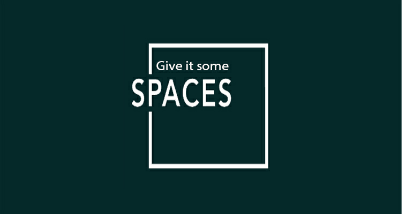
Tips for Choosing a Logo Font
“A recognizable graphic design element, often including a name, symbol or trademark, representing an organization or product” this is the standard definition of a “logo”. A logo in simpler terms is the combination of a visual, some text and an overall aesthetic. A logo accomplishes two basic tasks even before your customers interact with you. Number One, tell your customers the name of your business and Number Two, Create a visual representation of what your business is all about. The font used in the logo aids in creating a visual representation in a huge way and today we will be taking a look at some tips to help you in choosing the best fonts for your logo.
Essential Tips Choosing the Perfect Font for a Logo
1. Keep it Simple
If it’s bold it’ll hold, say the biggest tattoo artists of the world and the same hold true for Logos. Logos with Simple fonts are like timeless classics, you can see them for extremely long periods of times and still never get bored of them. A logo with a clean font is also easier to reproduce on multiple texture types and surfaces as well for ease of printing. So if you are planning on having some Mato & Hash Custom T-Shirts printed with your logo on, you want to make sure that it ends up looking just as you envisioned it. Do ensure though that your logo looks clean even when enlarged or it will end up looking ugly on banners and other large form marketing materials.
2. Make it easy to Read
Certain fonts are basically just eyesores, make sure you don’t pick one of those! Your font should be easy to read and even easier to remember, that is how you will make a long lasting impact.
3. Select Fonts that represent your brand identity